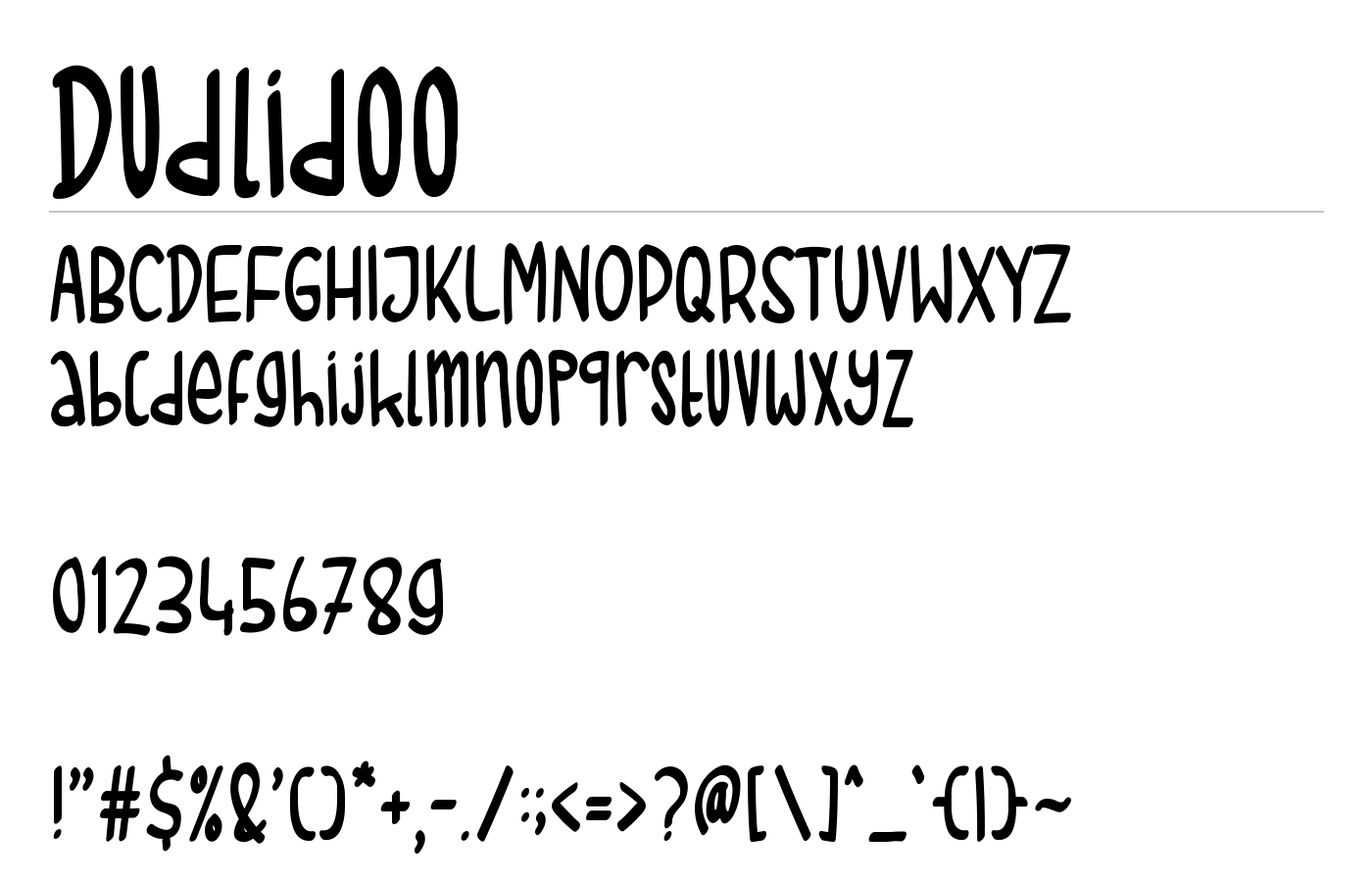
Dudlidoo is a playful and casual handwritten sans serif font with a tall, narrow structure and irregular strokes that give it a lively, friendly feel. Its quirky letterforms and slightly uneven baseline make it perfect for creative, informal designs like kids’ projects, greeting cards, and fun branding. This font works best where a warm, approachable, and whimsical vibe is desired.
Dudlidoo Font
About Dudlidoo Font